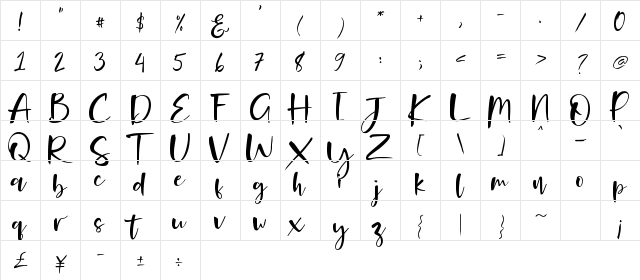
Onelove Free for Personal Use Regular Font Preview
Onelove Free for Personal Use Regular
Onelove Free for Personal Use Regular Font Details
| Designer | Abo Daniel 2019 |
Design Context for Onelove Free for Personal Use Typeface
Onelove Free for Personal Use is a composed and adaptable typeface that performs quietly and consistently across a wide range of design contexts.